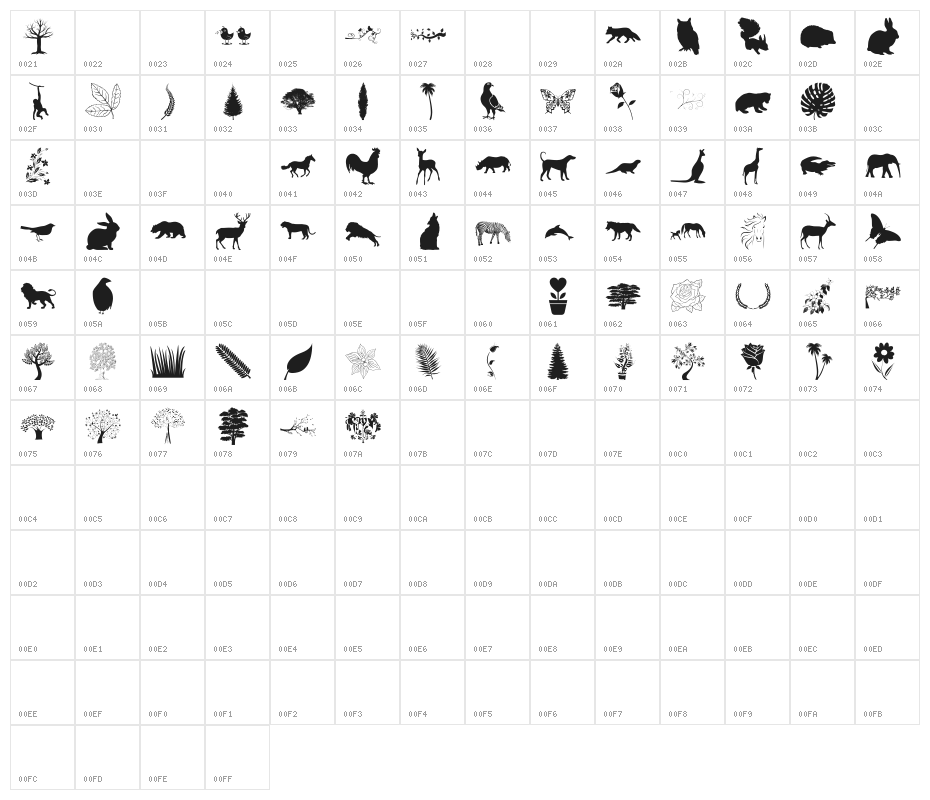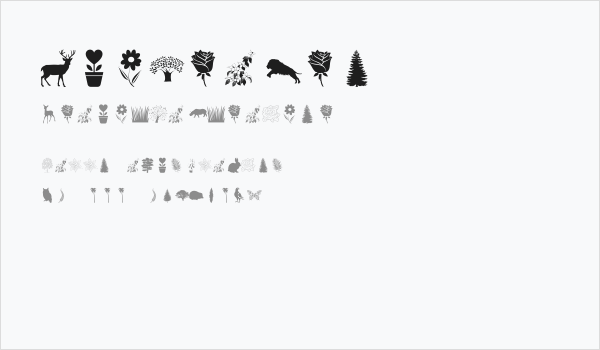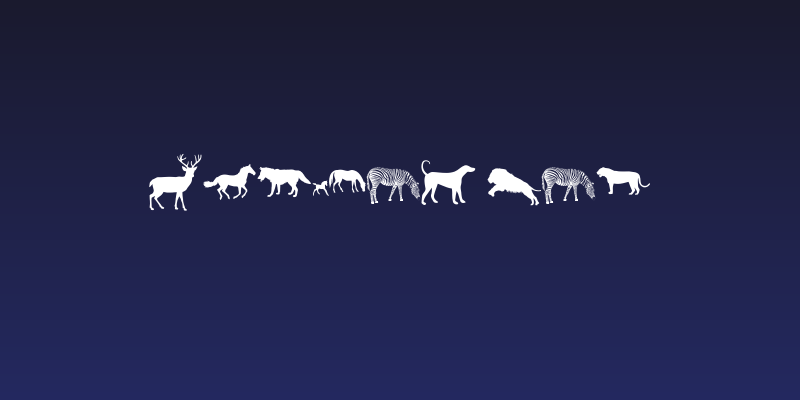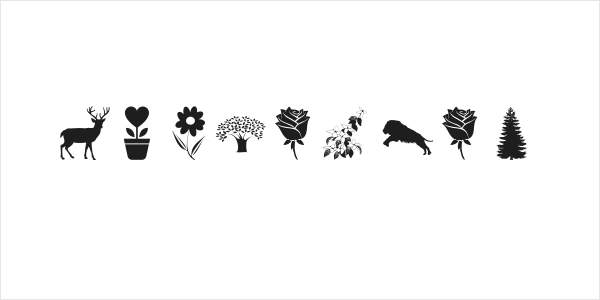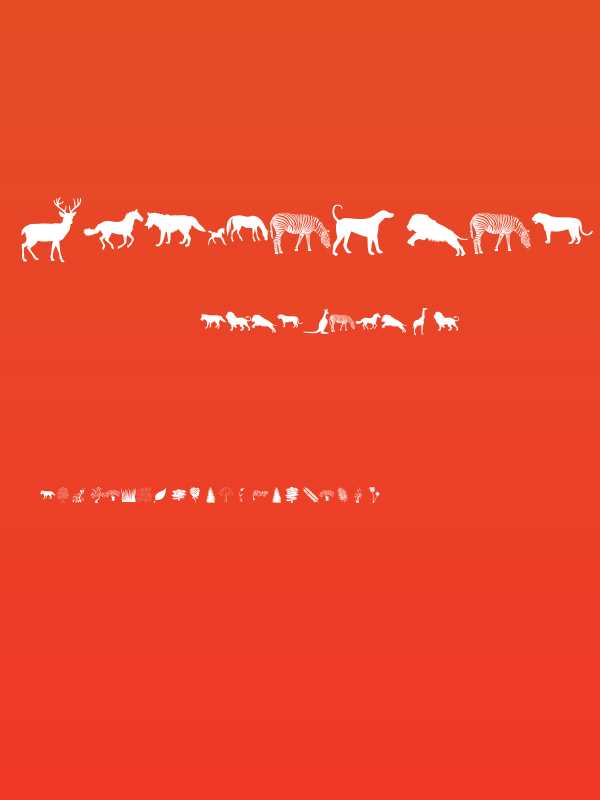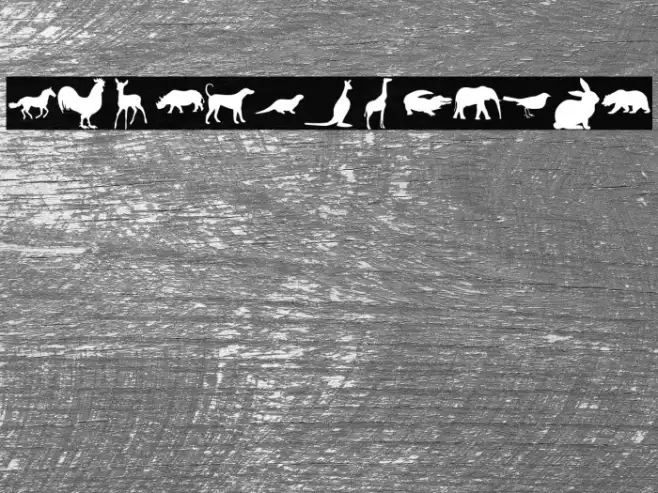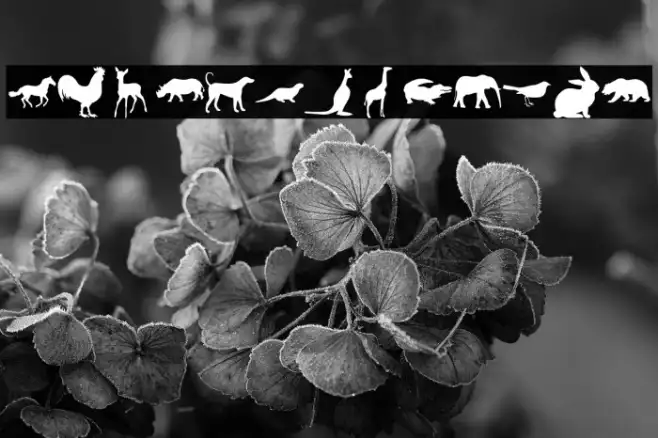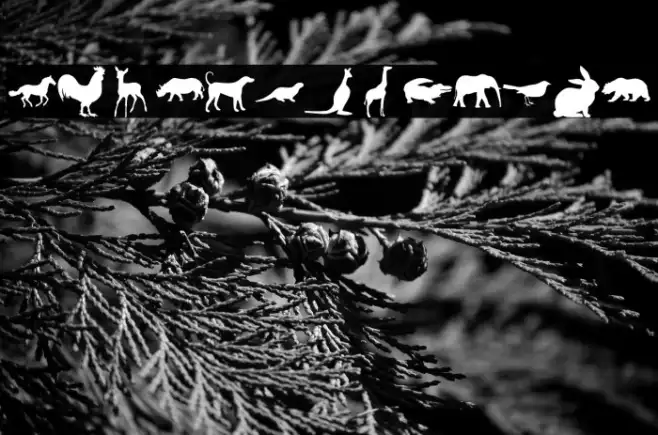
Nature Pro Font
Nature Pro Description
A collection of nature-themed pictograms featuring a variety of animals, plants, trees, and flowers in silhouette style. The icons are simple, bold, and easily recognizable, with clean outlines and minimal internal detail, making them suitable for clear visual communication.
| Overall Style | Decorative, Modern |
| Use Case | Icons, Logos, Decorative elements, Educational graphics |
| Proposed Projects | Eco-friendly branding, educational materials, children's books, environmental posters, nature apps, signage. |